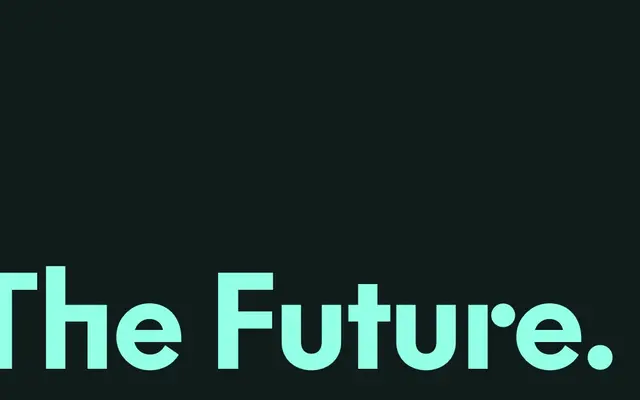
The Future
Klim Type Foundry · Kris Sowersby · 2022
A Futura homage drawn from Renner's production drawings, with seven weights, true italics and a deep set of avant-garde alternates.
A geometric sans by Kris Sowersby, built from Paul Renner's original production drawings rather than the many later interpretations of Futura. Seven weights from Thin to Black run with italics, and the stylistic sets carry the avant-garde alternate forms (square m, n, r, alt a and g) that Renner sketched but didn't ship. Sits alongside The Future Mono in the same family, and works for editorial, modernist branding and exhibition design where Futura's shape is the brief but the historical baggage isn't.
Klim classifies it as Geometric sans-serif; a homage to Futura drawn from Paul Renner's original production drawings, articulating his musings on modernity, abstraction and purity.